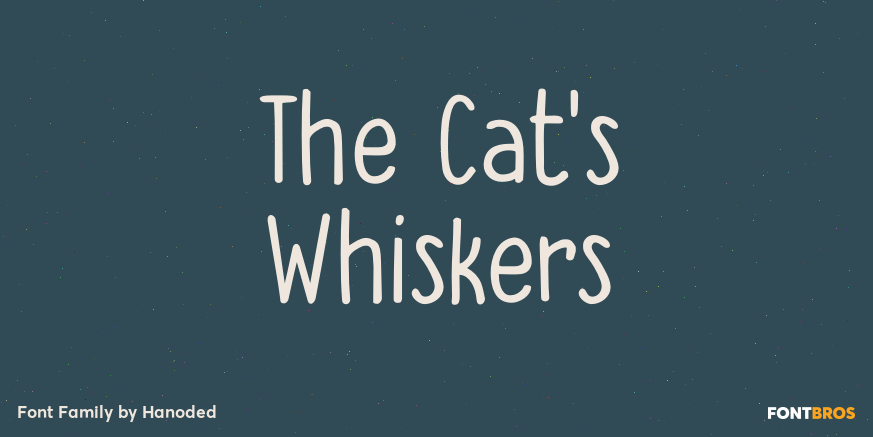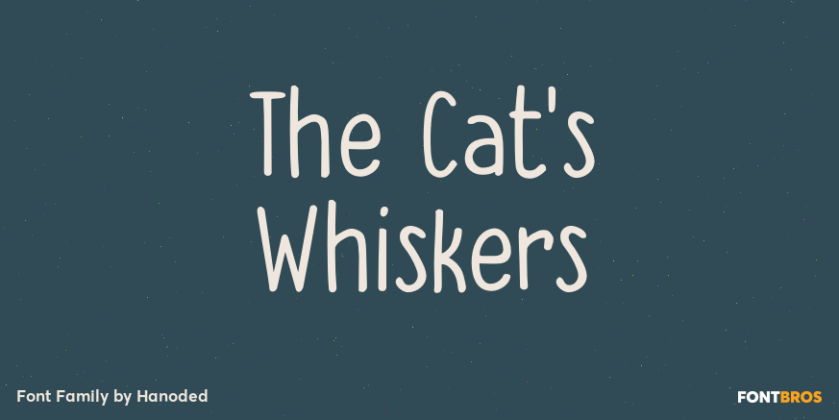
The Cat\’s Whiskers
Ok. Another font with cats in it. I asked my son, Sam (age 4), to draw some cats and I have to say: I\’m very proud of what he created. The tiger I asked him for became a spinosaurus mom with her baby and I also got some happy hearts thrown in for good…